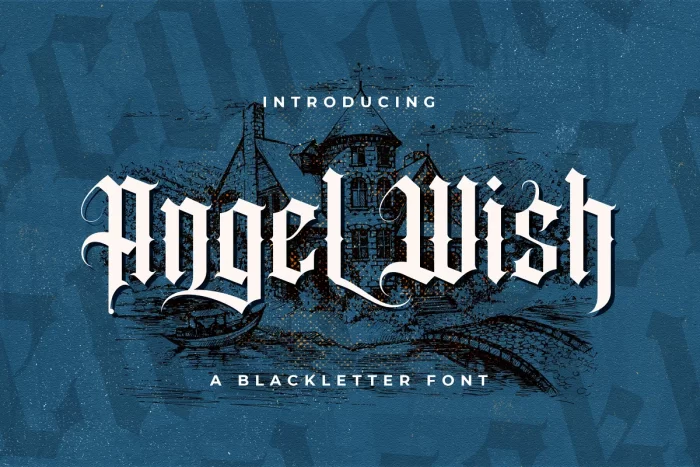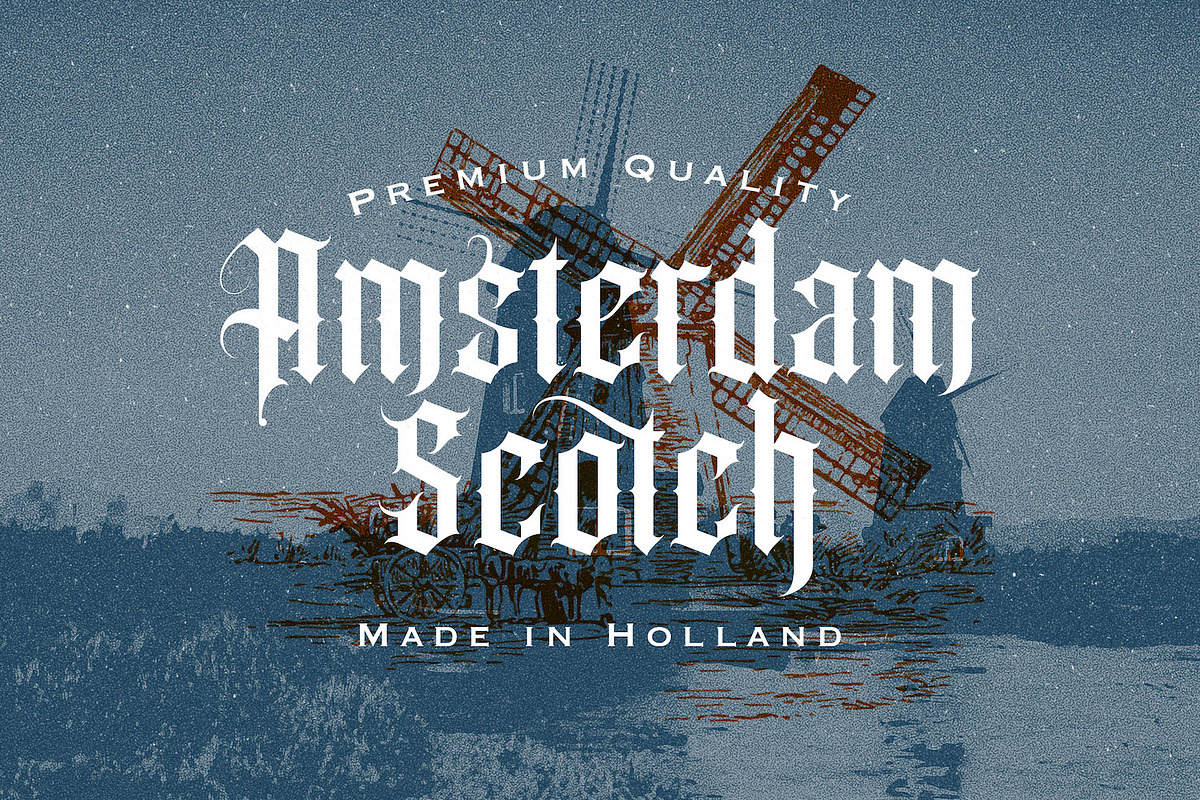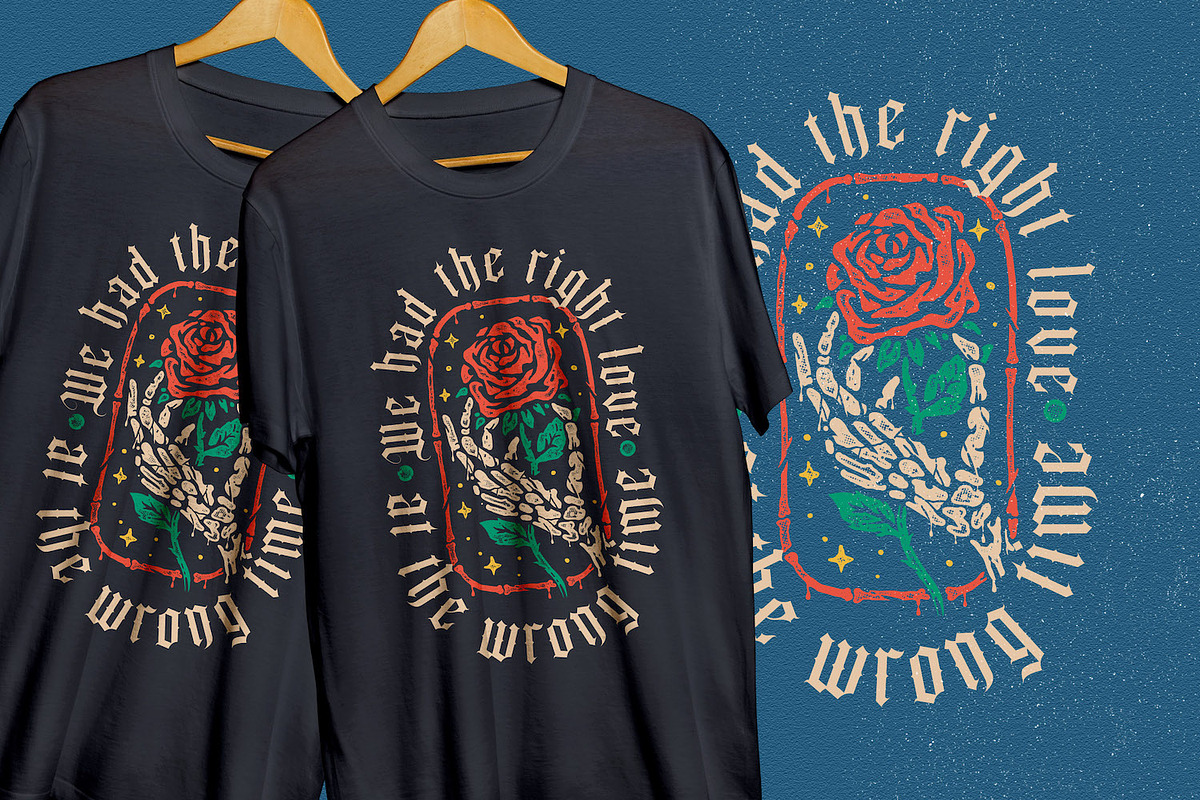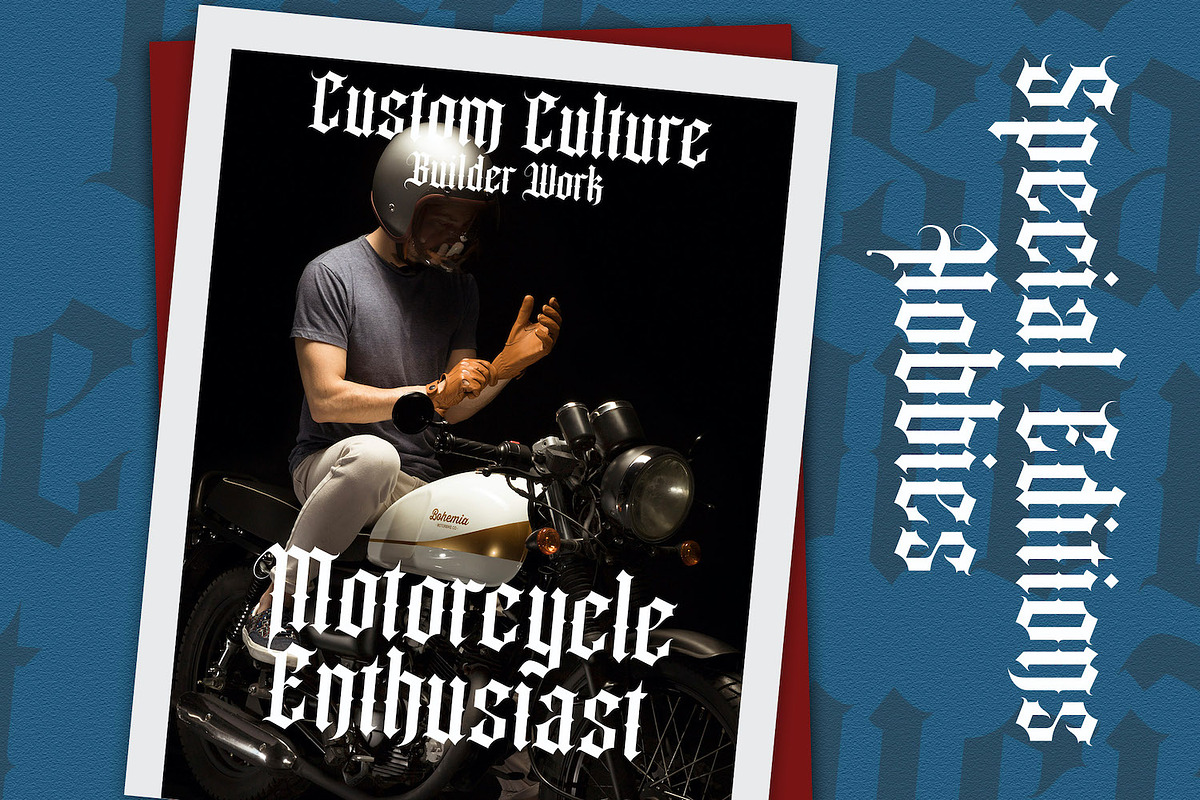
Angel Wish is an incredibly authentic and daring blackletter font. Add this font to your favorite creative ideas and notice how it makes them stand out! Ideal for branding projects, edgy logos, apparel designs, signage, and anything that needs a touch of rugged and artistic flair.
- Alternates
- Ligatures
- Uppercase and Lowercase letters
- Numbering and Punctuations
- Multilingual Support